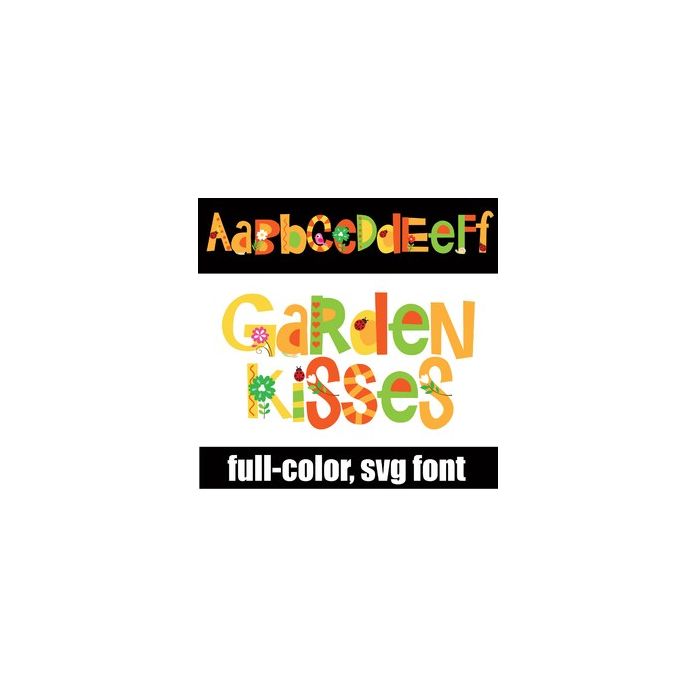
This full-color font features flowers, ladybugs, birds and more. There is a an alt version w/ secondary colors available through your system's or Silhouette's glyph map.